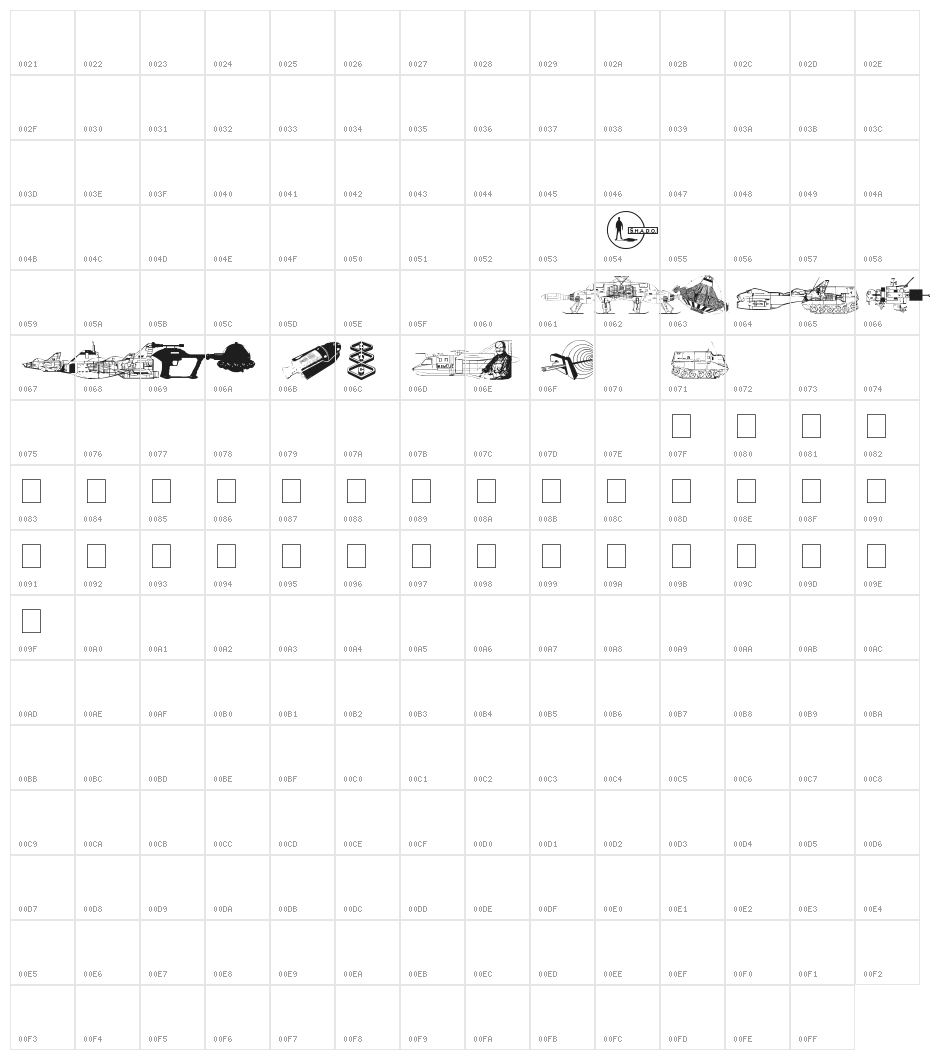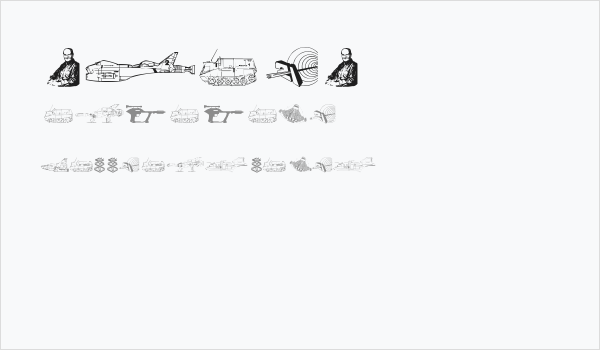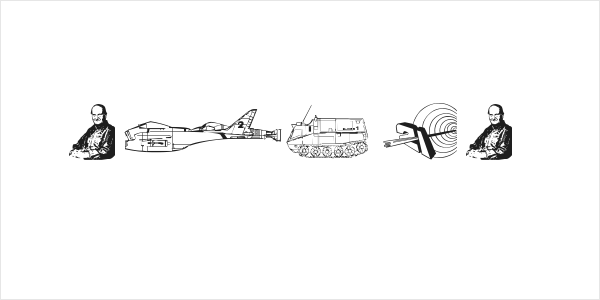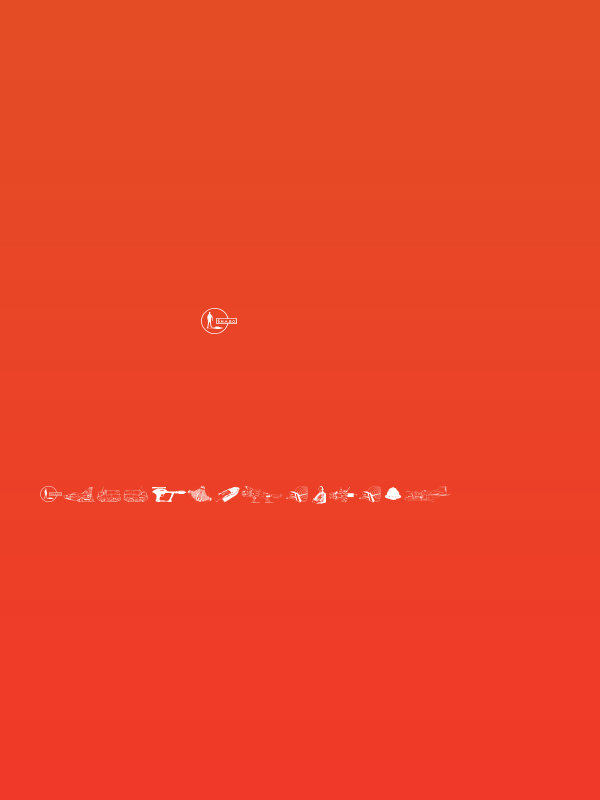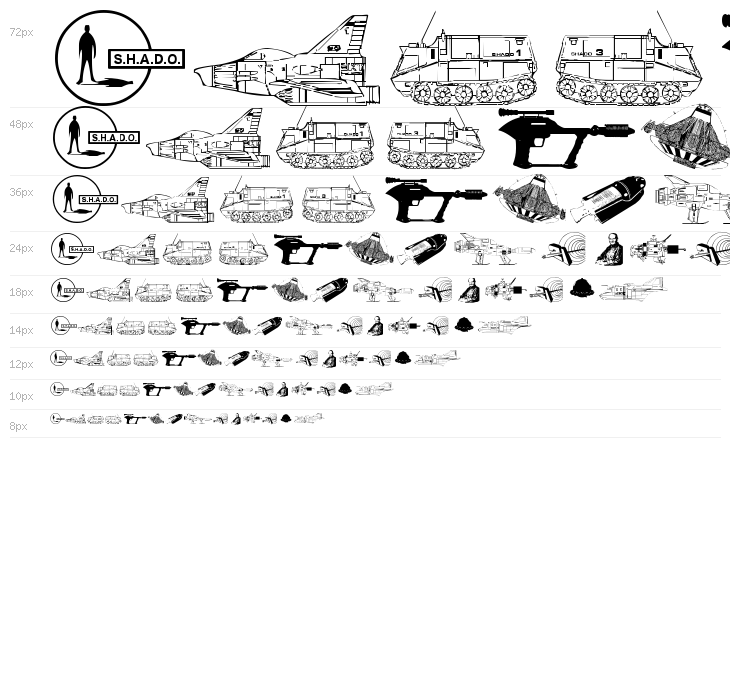
Anderson UFO Font
Anderson UFO Description
A collection of highly detailed, black-and-white pictogram glyphs inspired by science fiction themes, including vehicles, equipment, and characters. The style is illustrative with a focus on technical and mechanical elements, suitable for thematic or decorative use.
| Overall Style | Decorative, Technical, Sci-Fi |
| Use Case | Logos, Themed graphics, Decorative elements |
| Proposed Projects | Themed posters, fan art, science fiction event materials, educational diagrams, decorative headers. |